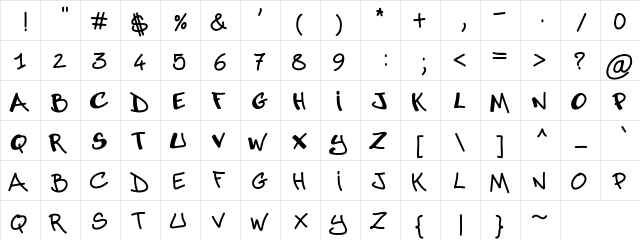
Abuse Regular
Design Context for Abuse Typeface
Abuse is a composed and adaptable typeface that performs quietly and consistently across a wide range of design contexts.
Pro Tip: Use Abuse in both headline and body roles to test its range before committing to a single application.